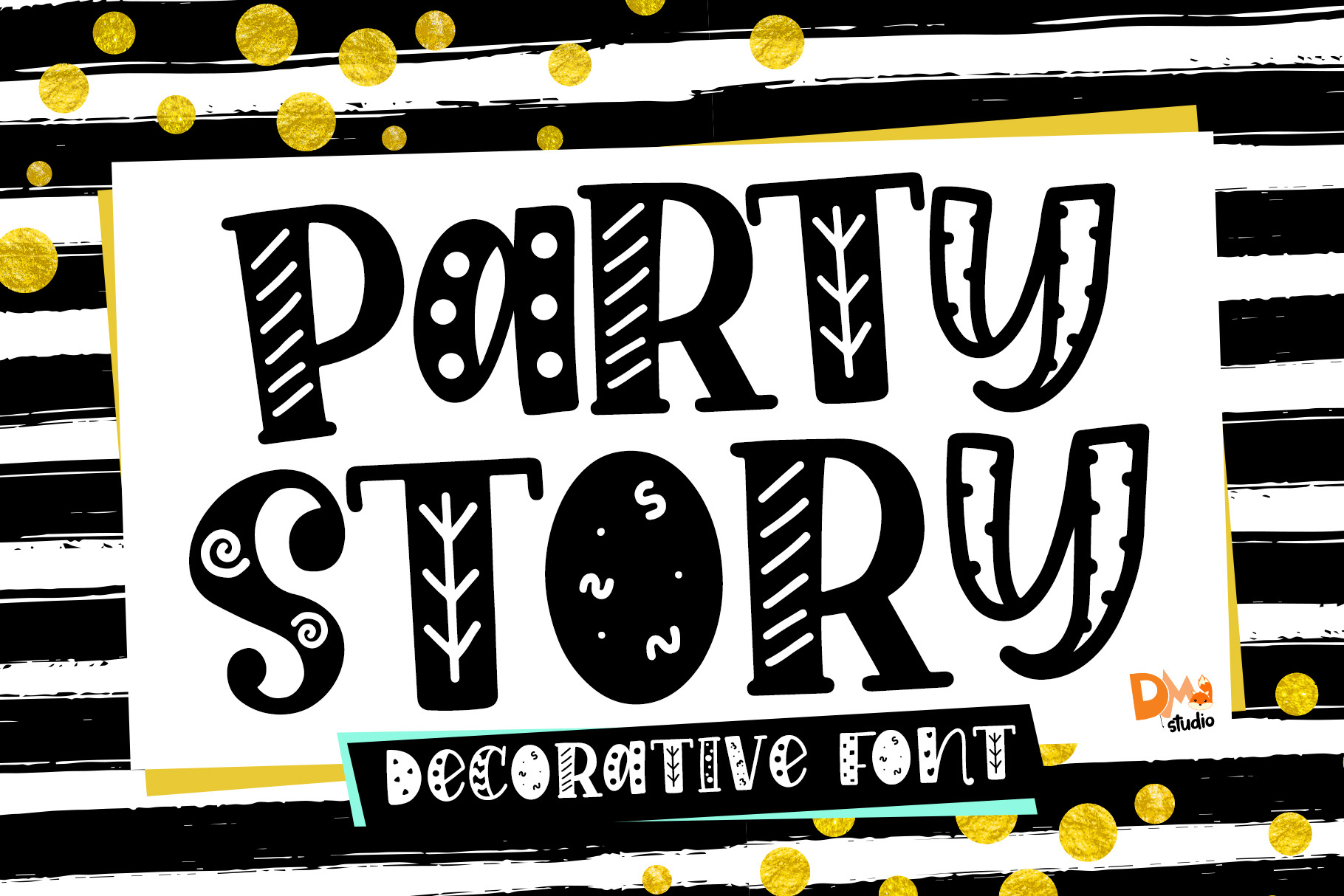
Party Story - Decorative Font
Party Story is a handwritten decorative font. With cute festive font style, make your crafting more fun!
- All in Caps
- Numeric